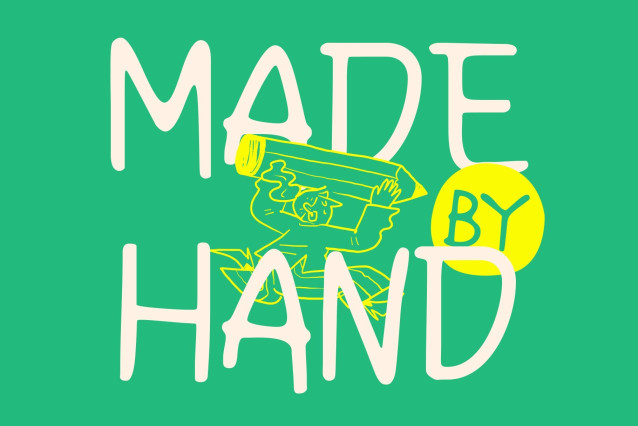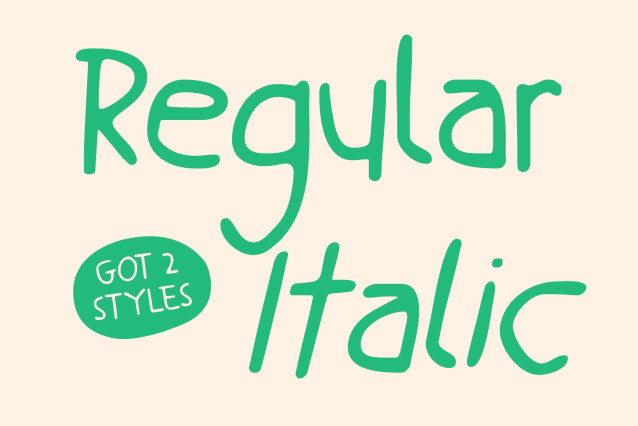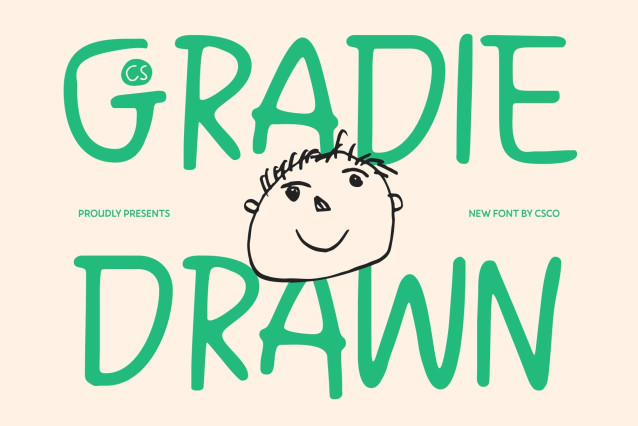
CS Gradie Drawn Font
CS Gradie Drawn Font – This is a handwriting-inspired display font that captures the warmth and spontaneity of real pen strokes. With a touch of playful, childlike messiness, each character flows naturally, creating an authentic, handcrafted feel. The drawn effect gives every letter texture and personality, making your designs feel lively, expressive, and full of youthful energy.
Organic Strokes for Genuine Approachability
The font’s soft, flowing pen strokes evoke sincerity and friendliness. Each curve and irregularity enhances its human touch, making text feel personal and approachable. Perfect for projects that aim to connect emotionally, this font adds warmth, character, and a heartfelt quality to any composition.
Playful Imperfections for Creative Fun
Embracing kid-like spontaneity, the font features slightly uneven shapes, lively curves, and whimsical details. This playful imperfection injects creativity and joy into headlines, posters, or branding, giving designs a dynamic, fun, and imaginative energy.
Ideal for Children’s Designs, Branding, and Whimsical Projects
From cheerful titles and social media graphics to greeting cards, quotes, and children’s branding, this font brings a handcrafted, friendly, and playful personality to every project. Its textured, expressive letters make every design feel lively, whimsical, and unforgettable.